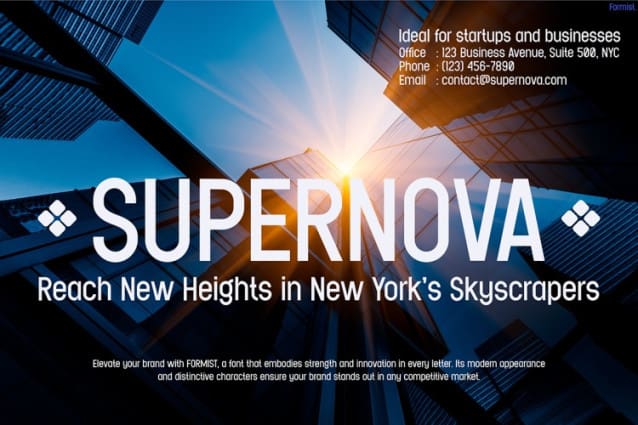
Formist Font
Formist Font, offers a sleek, modern typeface that adds sophistication to any project. Its bold yet minimalistic design ensures confidence and clarity, making it ideal for strong visual impact. With clean lines and geometric precision, Formist creates a futuristic appeal, perfect for branding, marketing, and editorial design.
What makes Formist Font truly special is its versatility. Whether you use it for headlines, social media, or corporate branding, it maintains a professional yet innovative look. Additionally, its slightly condensed spacing enhances readability, ensuring a clear message on both digital and print platforms.
Moreover, Formist takes inspiration from the digital world. It balances proportion and structure to create a polished appearance. As a result, it helps forward-thinking brands and creatives stay ahead of design trends.